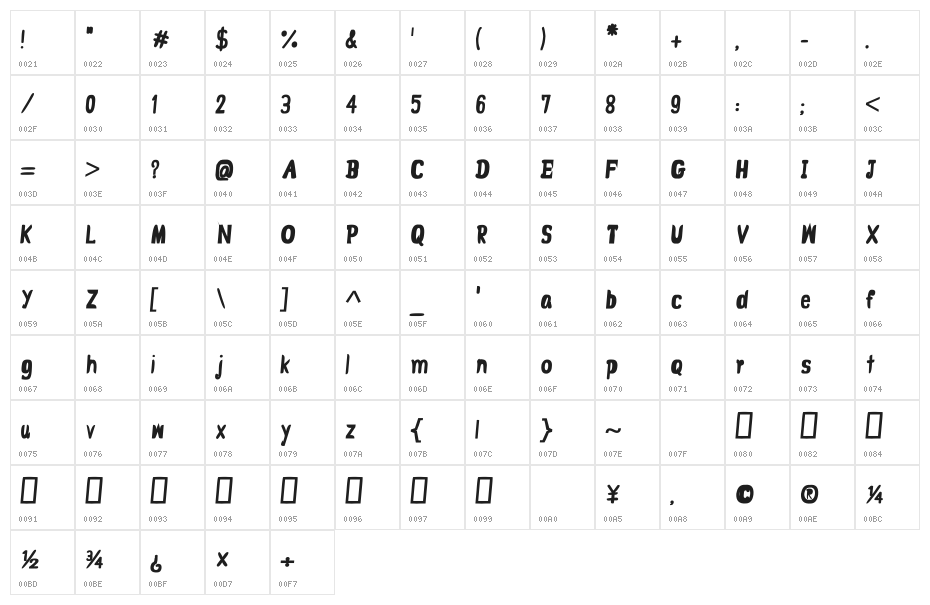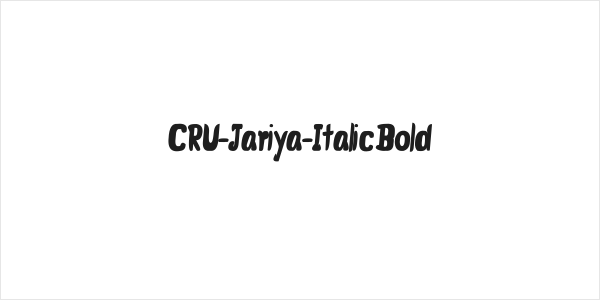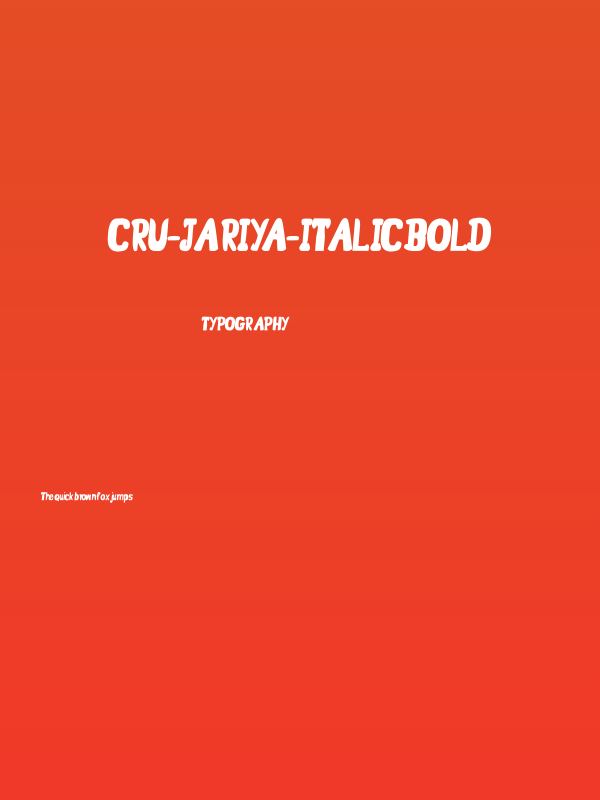
CRU-Jariya-Italic Bold Font
CRU-Jariya-Italic Bold Description
This font features a bold and italic style with a unique, playful character. The strokes are thick and rounded, giving it a friendly and approachable appearance. The letters are slightly slanted, enhancing the italic effect, while maintaining a consistent boldness throughout. The font includes both uppercase and lowercase letters, numerals, and a variety of special characters. Its design is modern yet retains a touch of whimsy, making it suitable for creative projects.
| Overall Style | Playful, Modern |
| Proposed Projects | Ideal for children's books, playful branding, posters, and creative advertisements. |